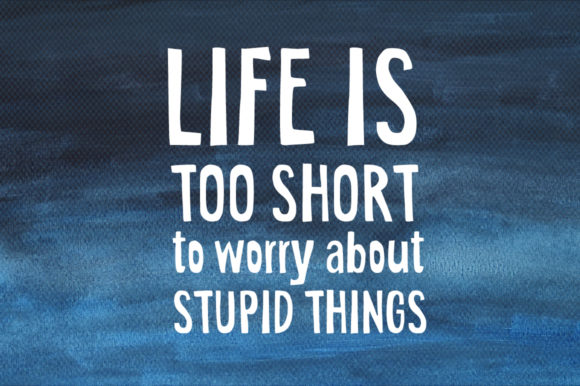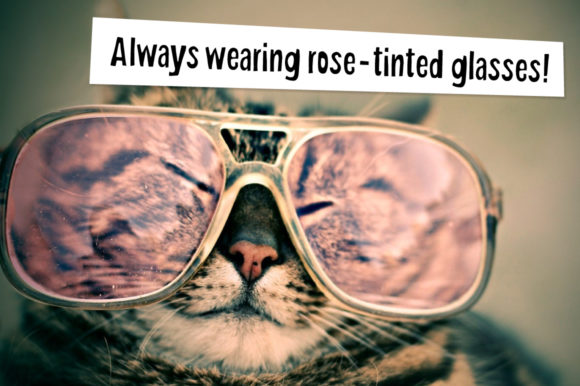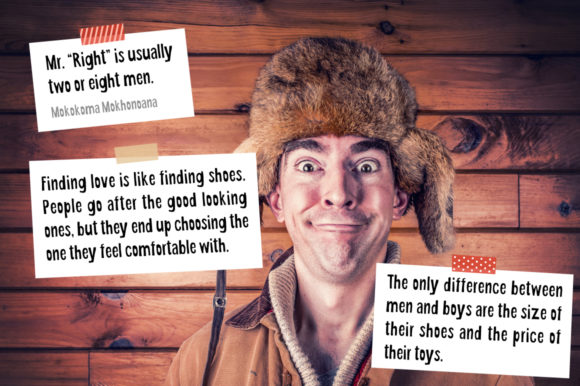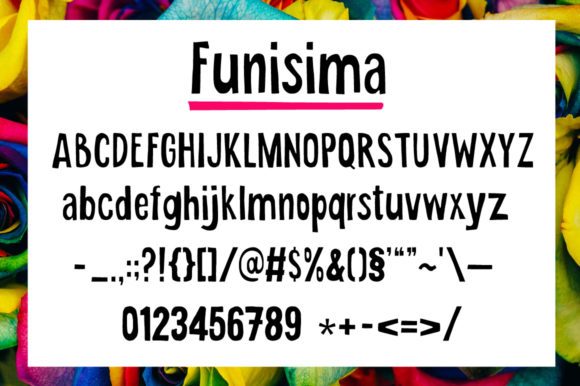
The Funisima Font: A Cool and Funny Handwritten Sans Serif Font
I’ll never forget the time I was working on a design project for a client who wanted a playful and artistic touch. I had spent hours browsing through font libraries, but nothing seemed quite right. That was when I stumbled upon the Funisima font. Its unique, handwritten sans serif style immediately caught my eye, and I knew I had found the perfect fit. In this article, I’ll share my experience with the Funisima font, its features, and how to make the most of it in your designs.
The Funisima font has won me over with its charm and versatility. Here’s what I love about it:
- ✨ Unique and quirky style that’s perfect for adding a touch of personality to designs
- 🎨 Great for use in a variety of design projects, from posters and flyers to social media graphics and blogs
- 🖌️ Fun and playful, yet still professional and clean
Of course, no font is perfect, and the Funisima font does have a few small quirks:
- 🤔 Some letters may appear a bit uneven or wobbly, which can be a bit distracting in certain contexts
- ⚠️ Limited language support, so it’s best to stick to English or languages with similar character sets
The Story Behind Funisima
The Funisima font was designed by a team of creatives who wanted to create a font that was both fun and functional. Inspired by the imperfections and quirks of handwritten text, they crafted a font that’s perfect for adding a touch of personality to designs. Whether you’re a designer, crafter, or hobbyist, the Funisima font is sure to bring a smile to your face.
| Font Name | Funisima Font |
| Author | Tabita’s shop |
| What is the Funisima font? | The Funisima font is a cool and funny handwritten sans serif font that’s perfect for adding an artistic touch to designs. |
| What languages is the Funisima font suitable for? | The Funisima font has limited language support, so it’s best to stick to English or languages with similar character sets. |